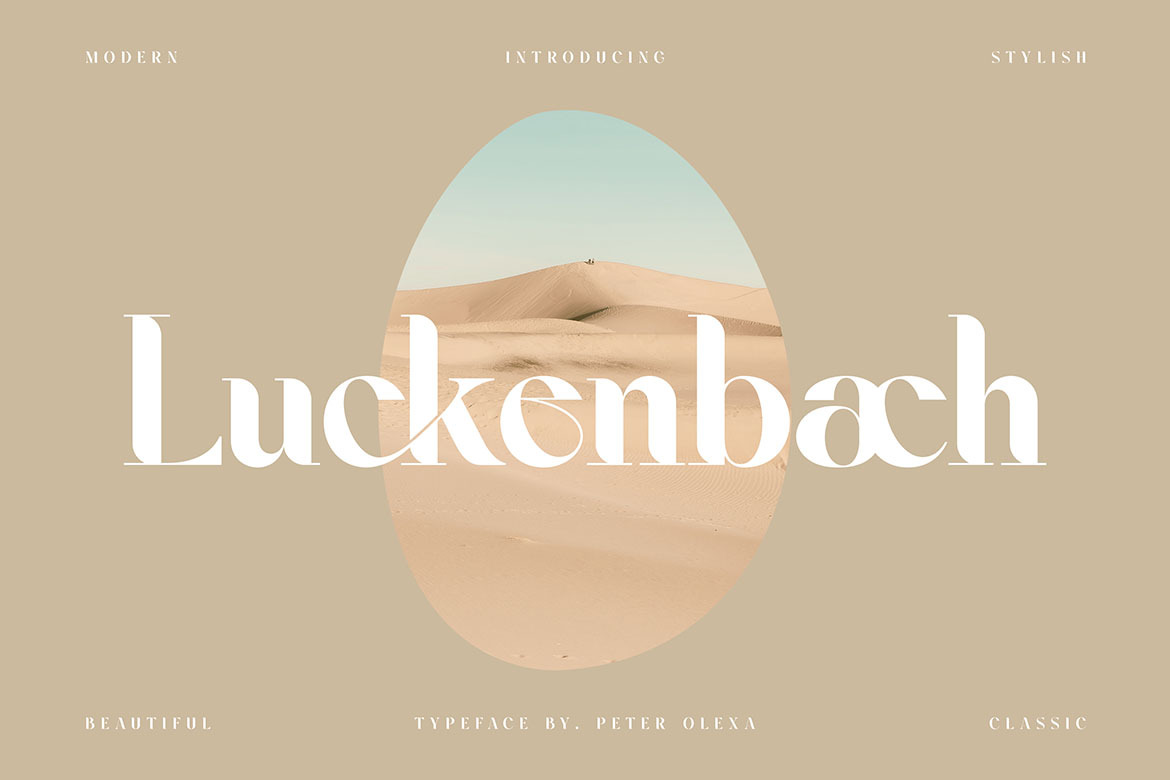
Luckenbach - Modern Serif Font
Trendy, bold & modern style serif font for your fancy projects. Elegant, luxury and classic style on Luckenbach font will be great for any branding project. Lot of ligatures will help you to create unique and original logo design or website header! Enjoy :)
- 2 styles: Regular & Italic
- Lot of ligatures
- Great for modern branding projects!